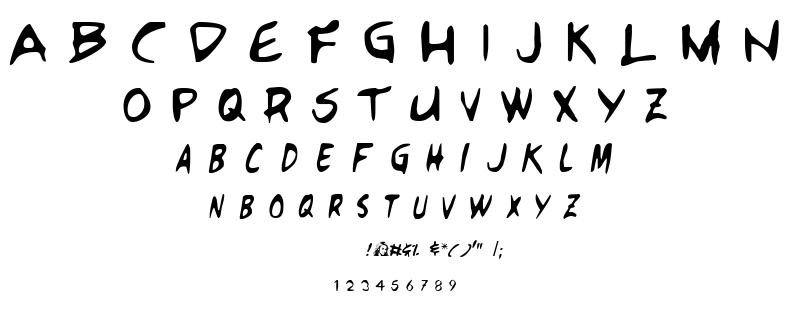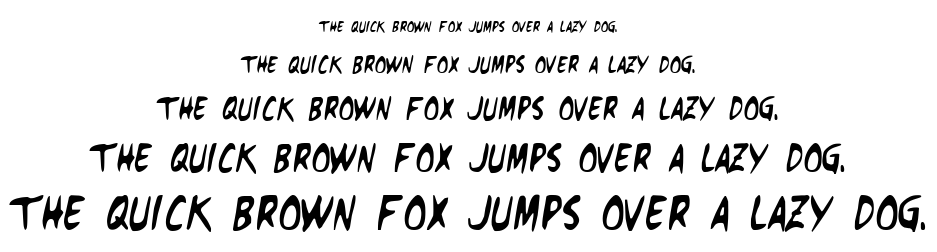
Heroes font
Loved this NBC series so much I created this FAN-BASED font for all based on the title sequence of the series, enjoy the photos of Hayden Panettiere and Ali Larter while you are here. Capitals are based on the chapter titles and lowercase based on the extra title information
“…SAVE THE CHEERLEADER, SAVE THE WORLD.”